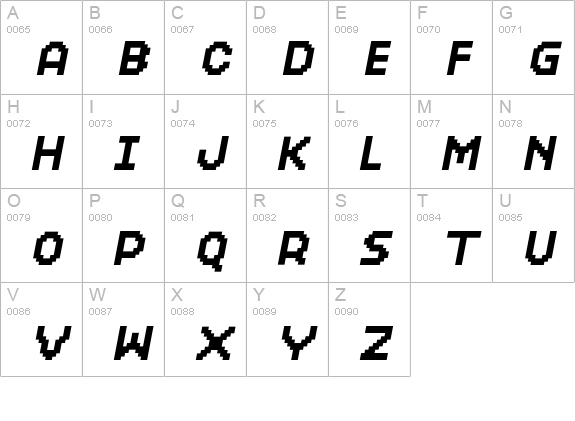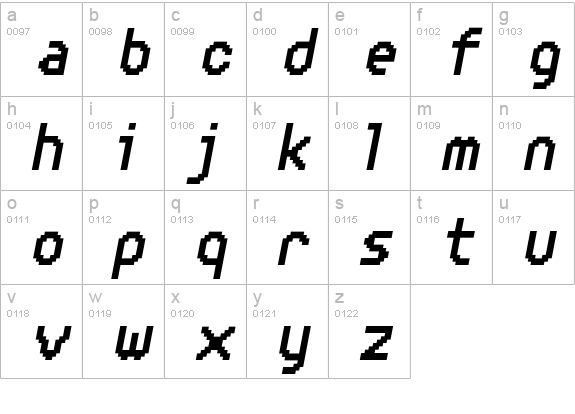
XERXES-TWELVEOBLIQUE Font Details
XERXES-TWELVEOBLIQUE font is a stunning and modern typeface that exudes elegance and sophistication. With its sleek lines and unique design, this font is perfect for adding a touch of class to any project. Whether you're designing a logo, creating a website, or working on a print layout, XERXES-TWELVEOBLIQUE is sure to make a statement. What's even better is that this font is available for free download at FontsMarket.com. This means you can easily access and use this beautiful typeface without any cost, making it a fantastic choice for both personal and commercial projects. Don't miss out on the opportunity to enhance your designs with the luxurious XERXES-TWELVEOBLIQUE font – download it today and start creating something truly special.